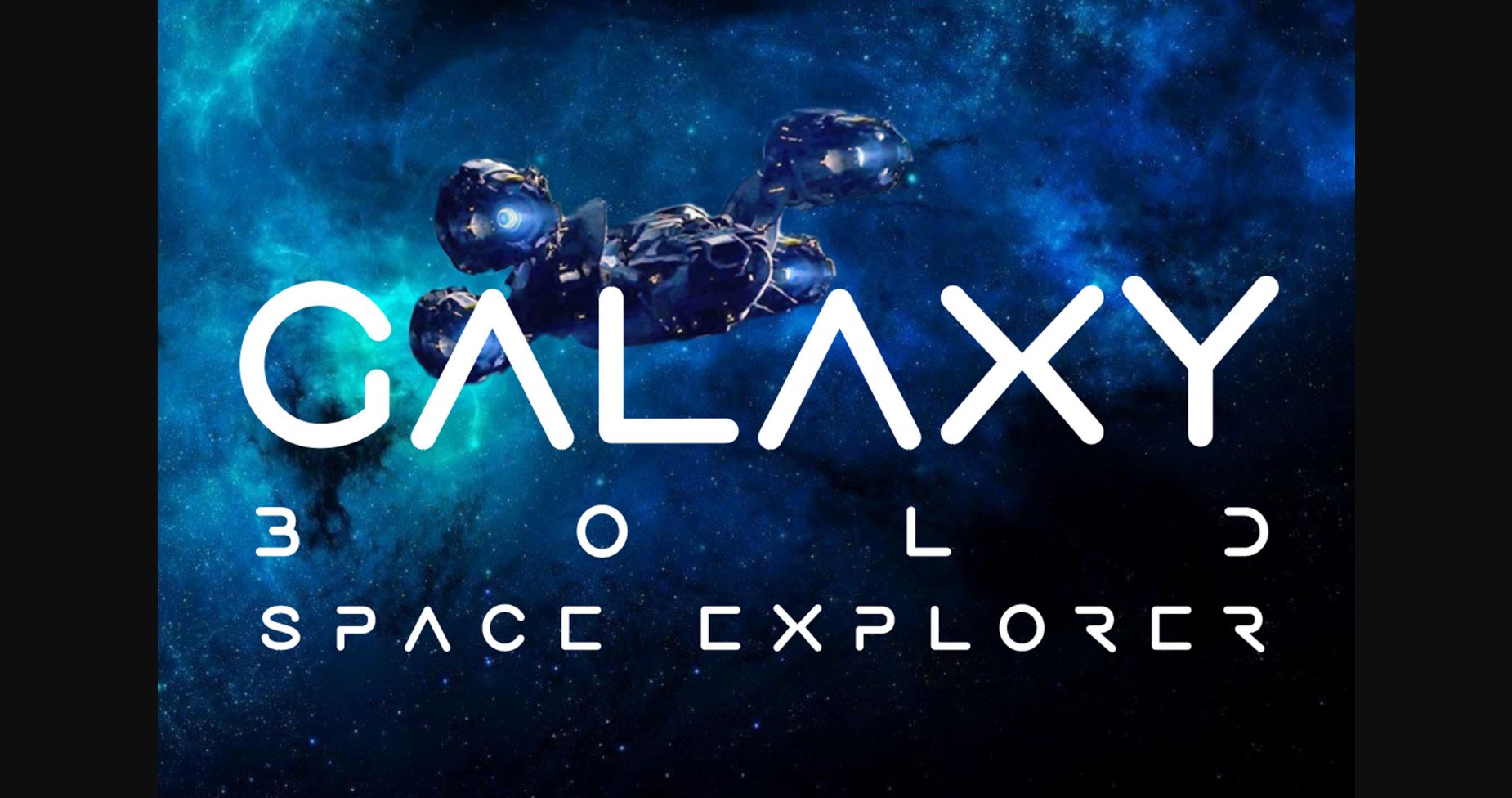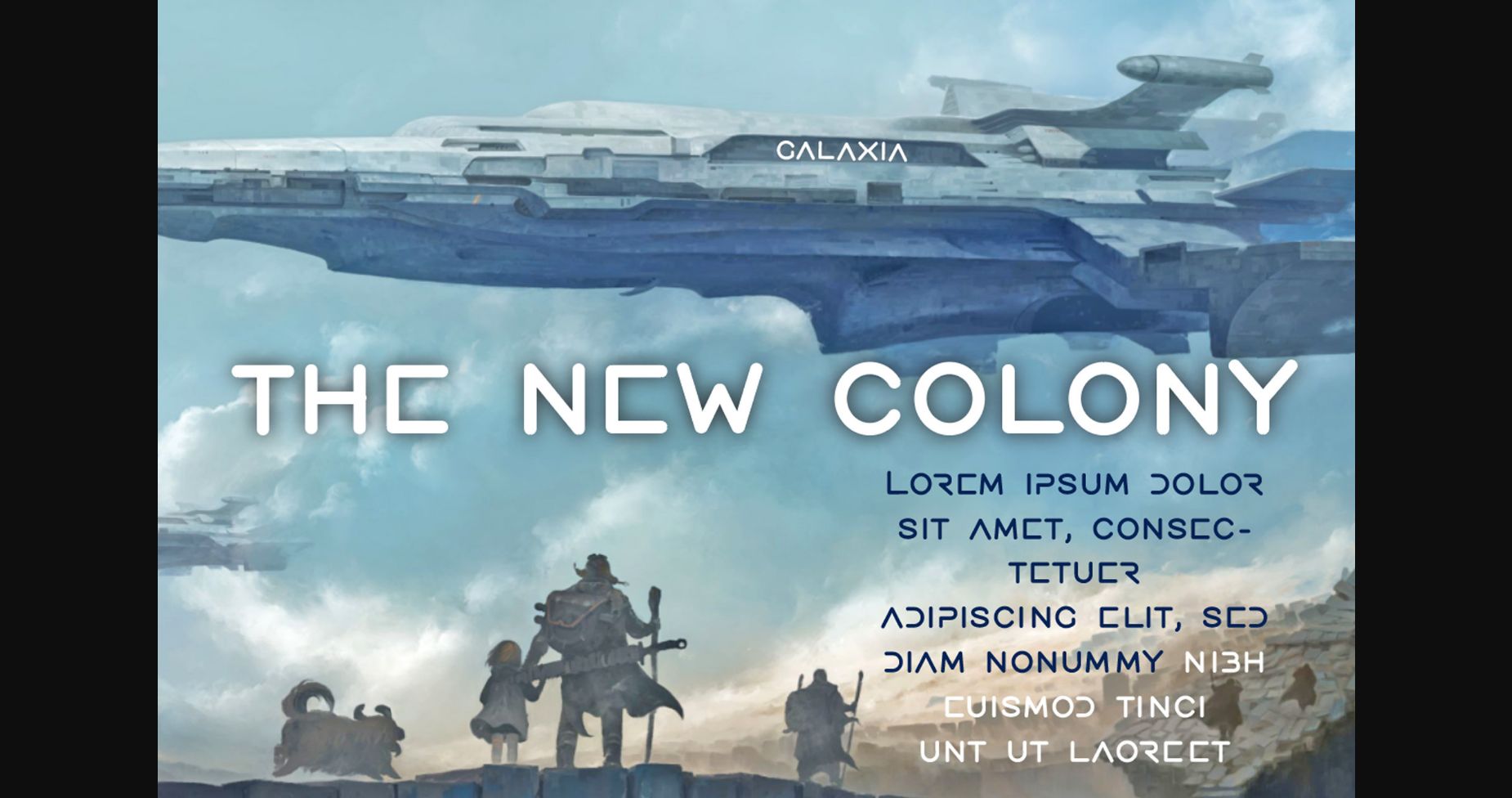
About Galaxy Font
Galaxy is a minimal and neat sans serif font. It can easily be matched to an incredibly large set of projects, so add it to your creative ideas, and notice how it makes them stand out!